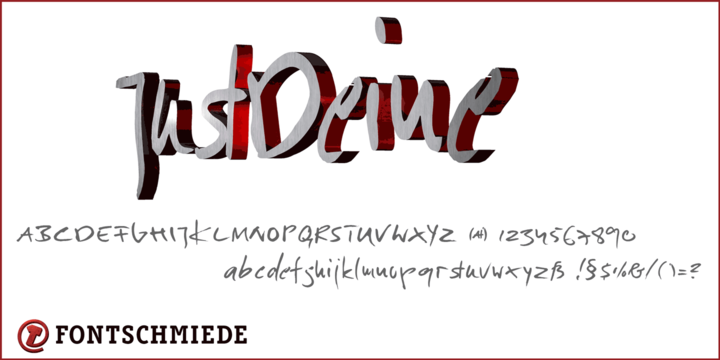
• Just Deine
JustDeine combines very unique characters with a vast variety of ligatures, figures, fractions and symbols which appear in different handwriting situations. The font allows expressively typographic work with a typical personal note - it’s Yours Only. Starting with the Regular style, this font family will be expanded by further styles and features.